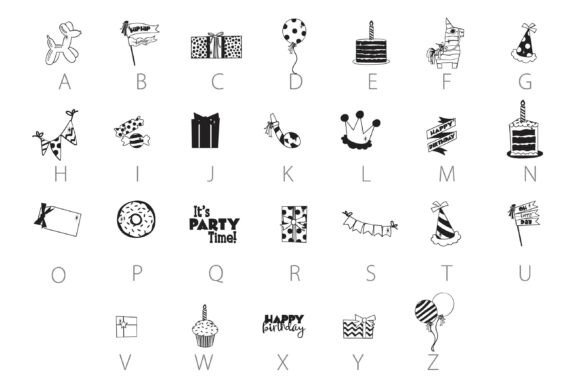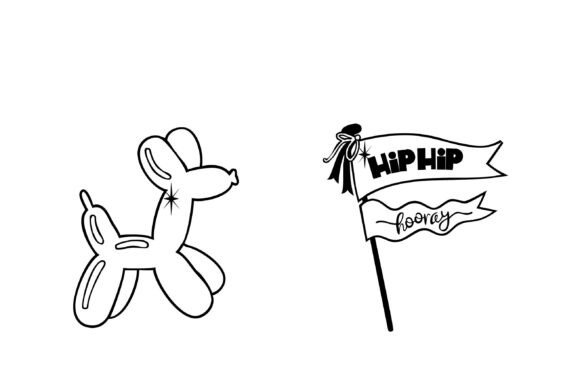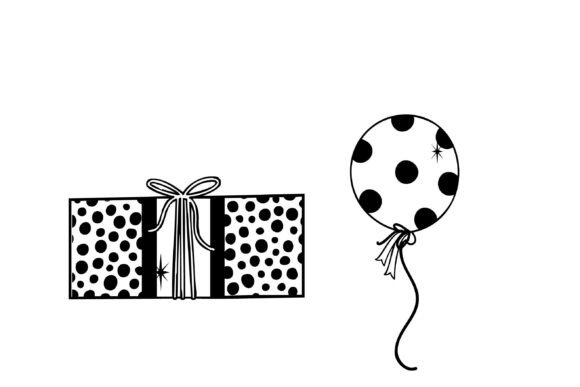
Introduction to Happy Hues Bash Dingbats Font
Have you ever found yourself in the midst of a creative project, searching for that perfect element to bring it all together? Maybe it’s a birthday invitation, a social media post, or even a custom party decoration. For designers like you, the right design resource can be the difference between a good project and a great one. That’s why we’re excited to introduce you to the Happy Hues Bash Dingbats Font, a high-quality collection of celebration-themed icons and dingbats that’s sure to add a pop of joy to your next creative project.
With its “joyful-maximalist” soul and clean, bold line work, the Happy Hues Bash Dingbats Font is the perfect choice for designers looking to add a little extra magic to their work. And the best part? This fantastic font is available for free download, complete with transparent background options to make it easy to incorporate into your designs. Whether you’re a seasoned pro or just starting out, the Happy Hues Bash Dingbats Font is a valuable addition to any designer’s toolkit.
Key Features of Happy Hues Bash Dingbats Font
- Unique, hand-drawn design ideal for creative projects and high-quality design resources.
- High-resolution design, suitable for use in print and digital applications, including posters, flyers, and social media graphics.
- Designed to be versatile, Happy Hues Bash Dingbats Font can be used in a wide range of creative projects, from branding and marketing materials to editorial and educational content.
Honest Review: Happy Hues Bash Dingbats Font
I recently stumbled upon the Happy Hues Bash Dingbats Font and I must say, it’s a delightful addition to any designer’s toolkit. As a design resource, it’s perfect for creative projects that require a pop of color and whimsy.
What works well about this font is its playful and vibrant aesthetic ✨. The high-quality design ensures that it looks great on any background, including transparent backgrounds. I particularly appreciate that it’s available for free download, making it an excellent choice for designers on a budget.
Some of the key features of the Happy Hues Bash Dingbats Font include:
- Over 100 unique dingbat designs
- High-quality vector graphics
⚠️ One limitation of this font is that it may not be suitable for projects that require a more serious or minimalist tone. However, for creative projects that aim to be fun and engaging, it’s a great choice.
Overall, I’m thoroughly impressed with the Happy Hues Bash Dingbats Font. Its unique design and high-quality graphics make it a valuable addition to any designer’s toolkit.
Getting the Most Out of Happy Hues Bash Dingbats Font
To get the most out of Happy Hues Bash Dingbats Font, use it with a transparent background to create visually appealing designs. Experiment with different font sizes and colors to add depth and interest to your design.
Happy Hues Bash Dingbats Font is a versatile design resource that can be used for a variety of creative projects, such as social media graphics, posters, flyers, logos, infographics, brochures, presentations, reports, and documents. It’s perfect for designers looking for a unique and high quality font to add to their design arsenal.